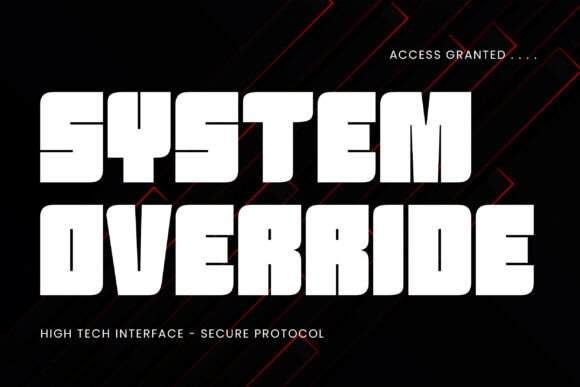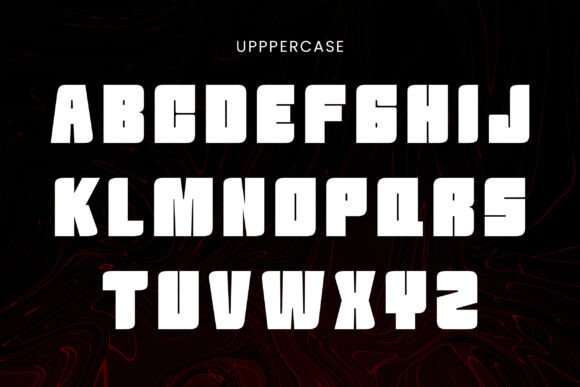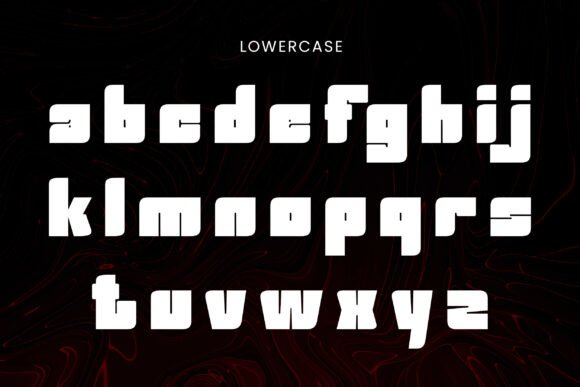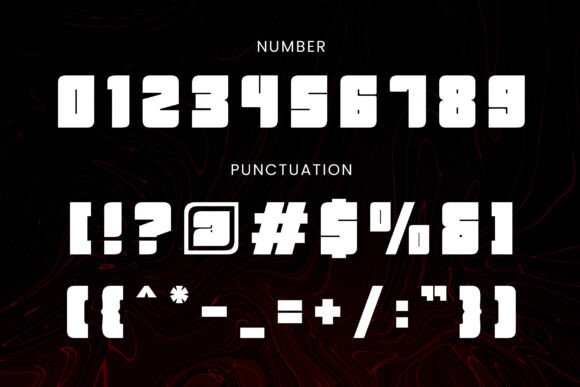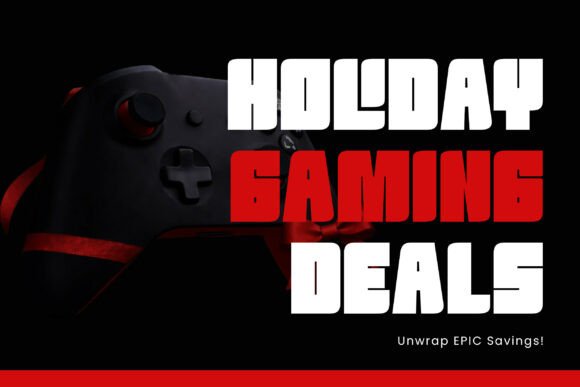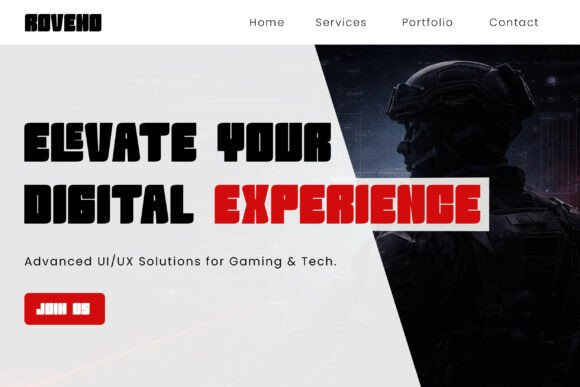
Introduction to Ranove Font
Have you ever stared at a blank canvas, waiting for inspiration to strike? You’ve got a creative project in mind, but you’re struggling to find the perfect design resource. That’s where the Ranove Font comes in – a game-changing tool that can elevate your visuals and take your design to the next level.
As a designer, you know how crucial it is to have a high-quality font that can deliver a strong, futuristic, and high-impact visual presence. With its bold and modern display, the Ranove Font is the perfect choice for designers looking to make a statement. Whether you’re working on a gaming, esports, or technology branding project, this font is sure to grab attention and leave a lasting impression.
Key Features of Ranove Font
- High-quality design: The Ranove Font is crafted with precision and attention to detail, making it a valuable resource for creative projects.
- Transparent background: This feature allows for seamless integration with various design elements and backgrounds, enhancing the overall aesthetic of your project.
- Unique characteristics: The Ranove Font boasts a distinctive and elegant design, making it perfect for adding a touch of sophistication to your creative project.
- Perfect for design projects: The Ranove Font is an excellent design resource for a wide range of creative projects, including branding, typography, and graphic design.
Honest Review: Ranove Font
As a designer, I’m always on the lookout for high-quality design resources that can elevate my creative projects. Recently, I stumbled upon the Ranove Font, and I’m excited to share my honest review.
- ✨ Beautifully crafted letters with a unique, elegant feel.
- ✨ Suitable for a wide range of design projects, from typography to branding.
- ⚠️ Limited character set, which may not be ideal for projects requiring extensive text.
- ⚠️ Transparent background may require additional design work to accommodate.
Overall, I’m impressed with the Ranove Font’s quality and versatility. While it may have some limitations, it’s a valuable addition to any designer’s toolkit. If you’re looking for a unique, high-quality font for your next creative project, I’d definitely recommend giving it a try.
The Ranove Font is a versatile design resource ideal for creative projects that demand high-quality typography. This font is available for free download and offers a transparent background, making it a valuable addition to any designer’s toolkit.
The Ranove Font is suitable for a range of creative projects, including graphic design, branding, and digital marketing.
Use the Ranove Font to create engaging social media graphics, eye-catching posters, and professional-looking documents.